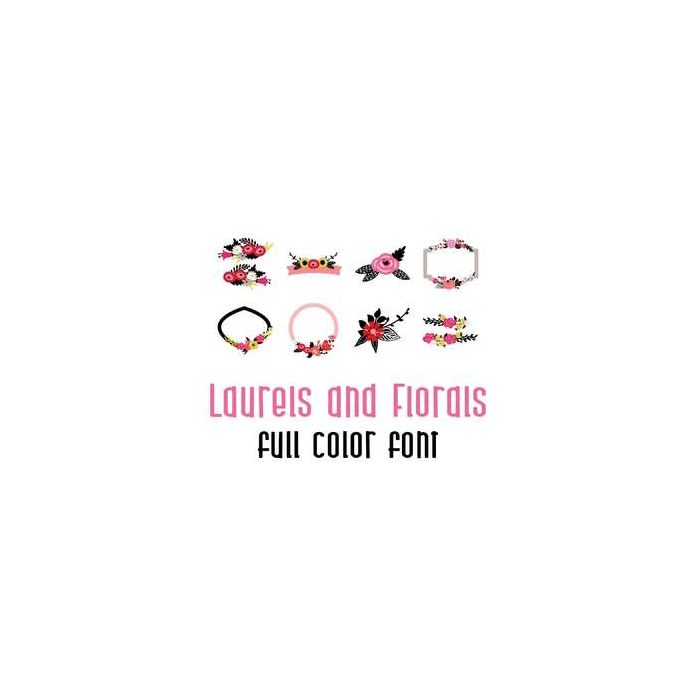
A full-color font stores svg data inside an Open Type font file. This font will look black if not used in a program like Silhouette Studio which is compatible.
This adorable full color doodlebat font features beautiful modern florals and leaves. Perfect for cards, crafts, gifts, decor, scrap book pages, planner stickers and more!